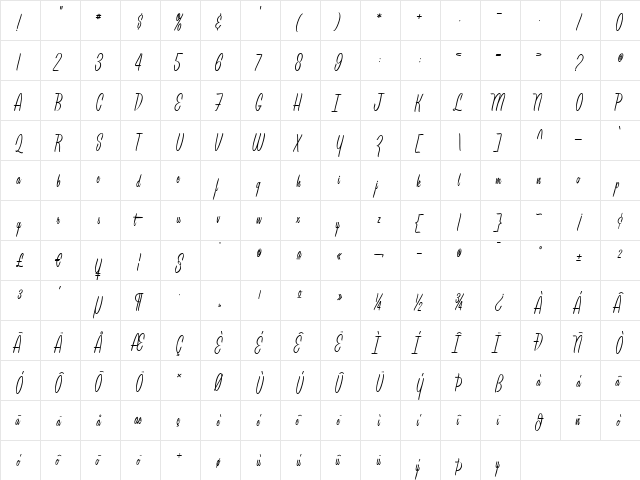
LeisureScript Regular
Design Context for LeisureScript Typeface
LeisureScript flows with the natural rhythm of handwritten lettering, making it ideal for designs that call for warmth and personal expression.
Font Pairing: Combine LeisureScript with a simple geometric sans for maximum contrast — the tension between flowing curves and clean structure is a classic typographic pairing.
Pro Tip: Use LeisureScript for short runs of text — names, titles, or taglines. Extended body copy in script faces tires the eye quickly.